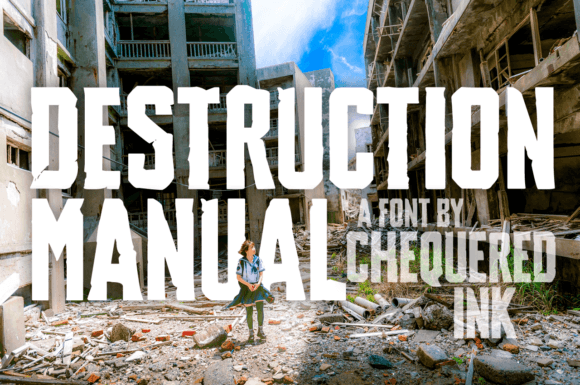
Give Your Design a Hand-Crafted Edge with Destruction Manual Font
Have you ever been stuck on a design project, staring at a blank screen, searching for that perfect font to bring your vision to life? We’ve all been there. It’s the moment when you know exactly what you want, but can’t quite put your finger on how to achieve it. That’s where the Destruction Manual Font comes in – a game-changing typography solution designed to give your brand that extra wow factor.
Whether you’re designing a logo, website, album cover, video game, or T-shirt, the Destruction Manual Font is the perfect tool to add a unique, hand-crafted feel to your product. Its versatility and customization options make it a valuable asset for designers looking to stand out from the crowd.
Destruction Manual Font Key Features
- Character Set: The font includes a wide range of characters, including uppercase and lowercase letters, numbers, punctuation, and special characters.
- Unique Characteristics: Destruction Manual Font features a distressed, grunge-inspired design with irregular edges and worn textures, giving it a rugged, industrial look.
Destruction Manual Font Review
Overall, I’m impressed with the unique style of the Destruction Manual Font. It has a gritty, industrial vibe that’s perfect for projects with a dark or edgy tone.
- ✨ The font’s irregular shapes and rough texture add a lot of character to any text.
- ✨ The font is highly customizable, with a wide range of weights and styles to choose from.
- ✨ It’s a great choice for projects that need a bold, attention-grabbing headline font.
- ⚠️ The font may be difficult to read for long blocks of text, due to its rough texture and irregular shapes.
- ⚠️ It may not be the best choice for projects that require a high level of legibility, such as body text or instructional materials.
Overall, I think the Destruction Manual Font is a great choice for projects that need a bold, edgy look. While it may not be the best choice for every project, it’s definitely a unique and eye-catching option.
Destruction Manual Font Practical Application Guide
Tips for Getting the Most Out of the Destruction Manual Font
Use the font in combination with other distressed or vintage elements to create a cohesive look.
Experiment with different font sizes and styles to achieve the desired effect.
Use the font to add a touch of nostalgia or retro flair to your design.
Distressed or vintage text effects.
Retro or nostalgic designs.
Grungy or edgy designs.
Alternatives to Destruction Manual Font
1. “Bebas Neue” Font
Bebas Neue is a modern sans-serif font with a distressed, hand-drawn look. It is ideal for creating a bold, edgy feel in designs such as posters, flyers, and music albums. Compared to Destruction Manual Font, Bebas Neue has a more refined, elegant look, making it suitable for designs where a more polished appearance is desired.
2. “Rock Salt” Font
Rock Salt is a distressed, rough font with a vintage feel. It is perfect for designs that require a rugged, worn look, such as vintage-inspired posters, book covers, and music merchandise. In comparison to Destruction Manual Font, Rock Salt has a more rugged, textured appearance, making it suitable for designs where a distressed look is essential.
3. “Pacifico” Font
Pacifico is a beautiful, handwritten font with a distressed look. It is ideal for creating a unique, artistic feel in designs such as wedding invitations, greeting cards, and advertising materials. Compared to Destruction Manual Font, Pacifico has a more elegant, refined look, making it suitable for designs where a touch of sophistication is desired.